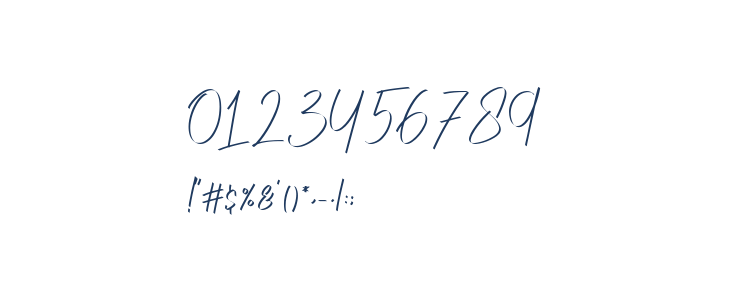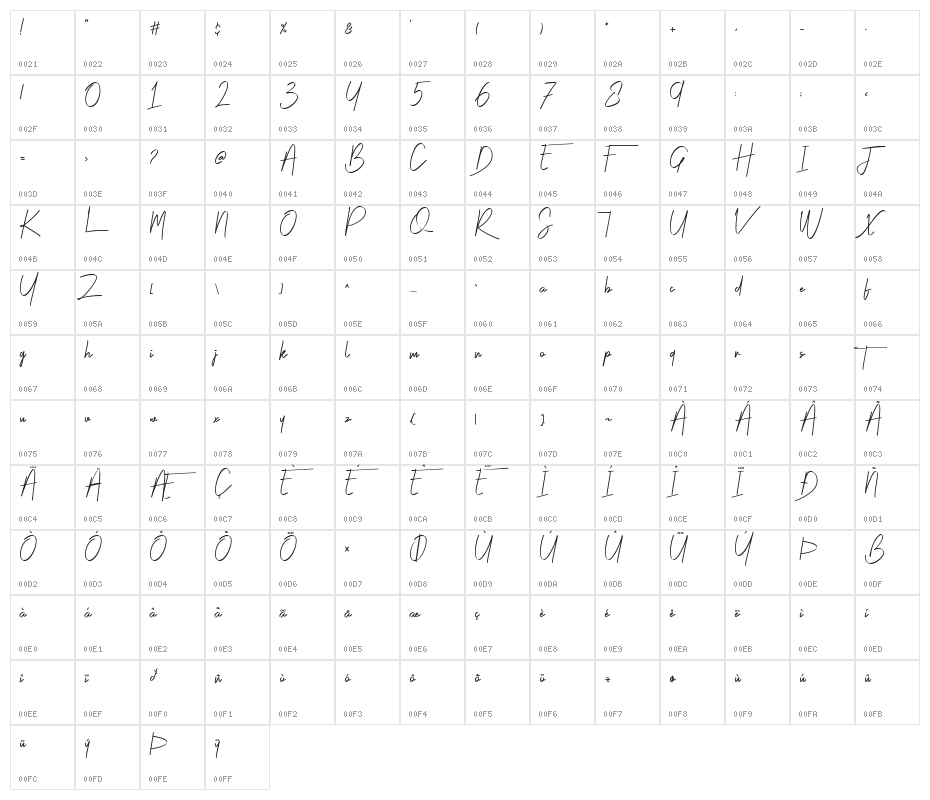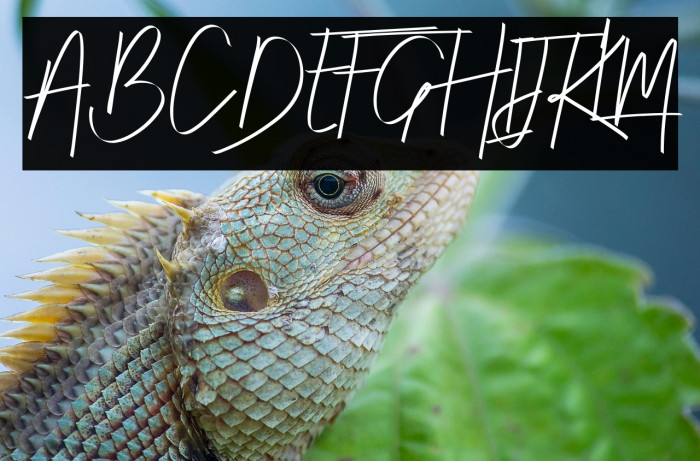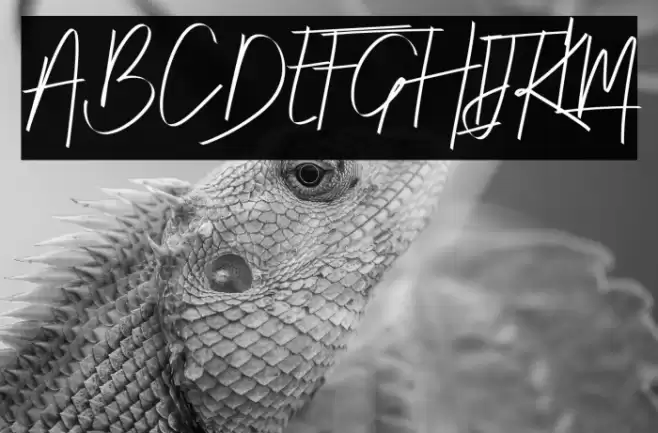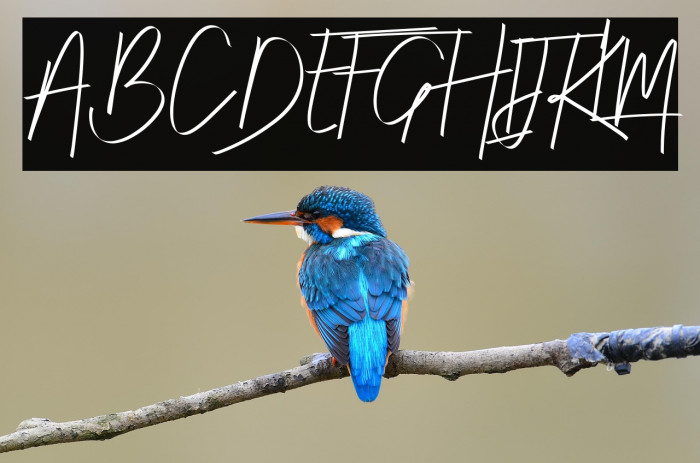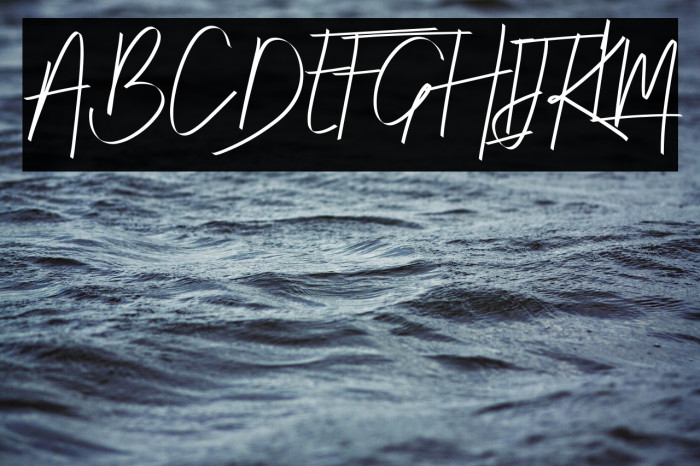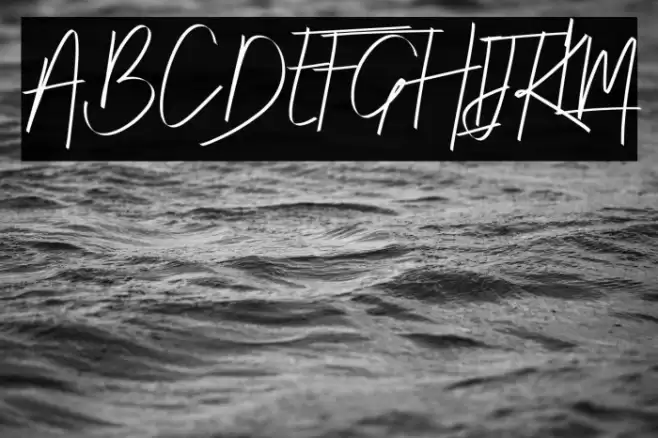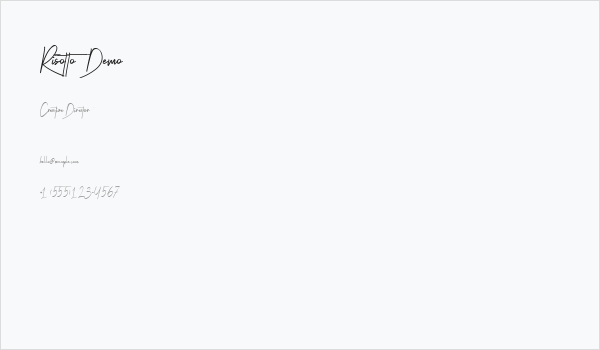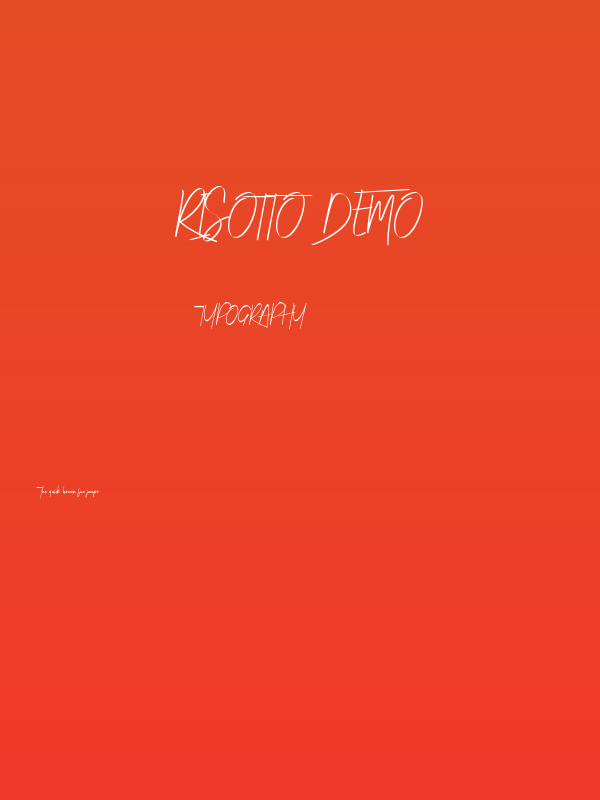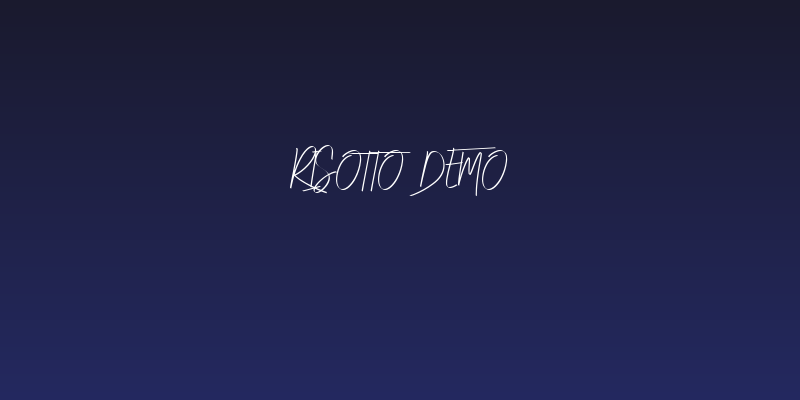
Risotto Demo Font
Risotto Demo Description
This font exhibits a lively and dynamic handwritten style, characterized by its fluid and expressive strokes. The uppercase letters are tall and slightly narrow, with a playful, artistic flair that suggests movement and energy. The lowercase letters maintain a consistent flow, enhancing the handwritten aesthetic. Numbers and special characters are crafted with the same attention to detail, ensuring a cohesive look across all glyphs. The overall impression is one of creativity and spontaneity, making it ideal for projects that require a personal touch.